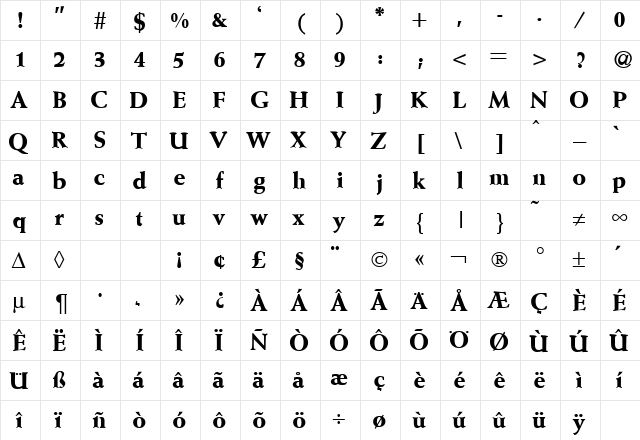
Waize Bold Font Preview
Waize Bold
Design Context for Waize Typeface
Waize offers clean, dependable letterforms without strong stylistic allegiance, making it a practical choice for designers who need flexibility. Its bold stroke weight gives it real presence on the page.